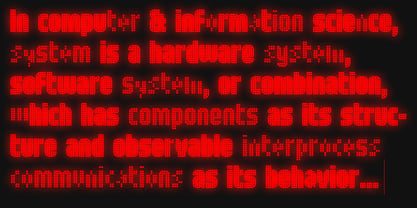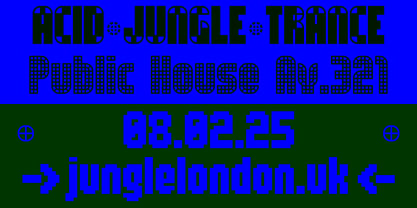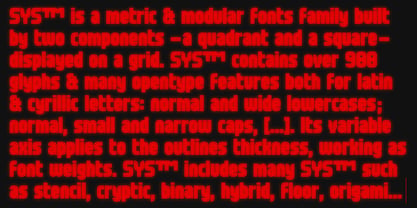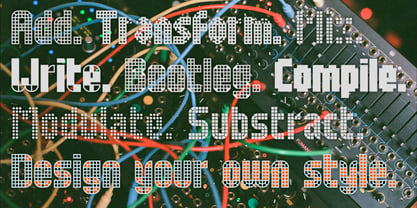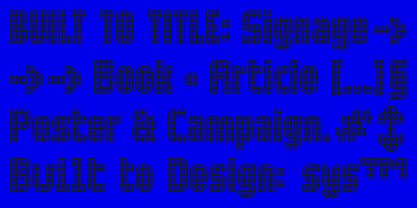
Systm Hybrid Reverse
La familia tipográfica Systm Hybrid Reverse fue diseñada por Simon Helmstetter y publicada por Blaze Type. Systm Hybrid Reverse contiene 6 estilos y opciones de paquete familiar. Más información sobre esta familia
SYSTM Hybrid Reverse is one of the subfamily of (link: https://blazetype.eu/typefaces/systm text: SYSTM) is a modular and metric font family built by two components – a quadrant and a square — displayed on a grid. Its design has been made to satisfy any grid obsession while echoing pavement’s principles, brutalist architecture, early interface designs and modular design in the broadest sense. Featuring one variable axis, applying to the outlines’ thickness, SYSTM lets designers reach any kind of style, weight and text optical gray. Above all, SYSTM has been designed to provide an efficient and versatile visual identity tool – including over 1000 glyphs, multiple stylistic sets and grids both for latin and Cyrillic letters.